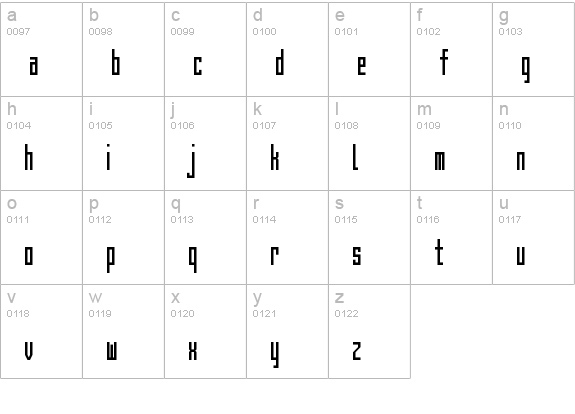
Brighton Square NBP is a stunning and versatile font that is sure to catch the eye of any designer or typographer. With its clean lines and modern aesthetic, this font is perfect for a wide range of projects, from branding and logo design to web and print materials. What makes Brighton Square NBP truly special is that it is free! Yes, you read that right - this amazing font is freely available to download at FontsMarket.com. With its high-quality design and elegant typography, Brighton Square NBP is a valuable asset for any creative project. Whether you're looking to add a touch of sophistication to your website or create eye-catching marketing materials, Brighton Square NBP has got you covered. Its legibility and readability make it an excellent choice for both headers and body text, ensuring that your message is communicated effectively. The attention to detail in this font is truly remarkable. Each letter is meticulously crafted, resulting in a balanced and harmonious typeface that is pleasing to the eye. The uppercase characters exude confidence and authority, while the lowercase letters offer a sense of approachability and warmth. Brighton Square NBP also includes a wide range of special characters and glyphs, allowing you to add a touch of uniqueness and flair to your designs. Whether you need an elegant ampersand or a decorative swash, this font has it all. In addition to its aesthetic appeal, Brighton Square NBP is also highly functional. It is compatible with both Mac and Windows operating systems, ensuring that you can use it on any platform. Its versatility means that it can be used in a variety of design software, including Adobe Photoshop, Illustrator, and InDesign. So why wait? Download Brighton Square NBP now and add a touch of elegance and style to your next project. Remember, this font is freely available to download at FontsMarket.com, so you can start using it right away. Don't miss out on this incredible opportunity to enhance your designs with a truly exceptional font.